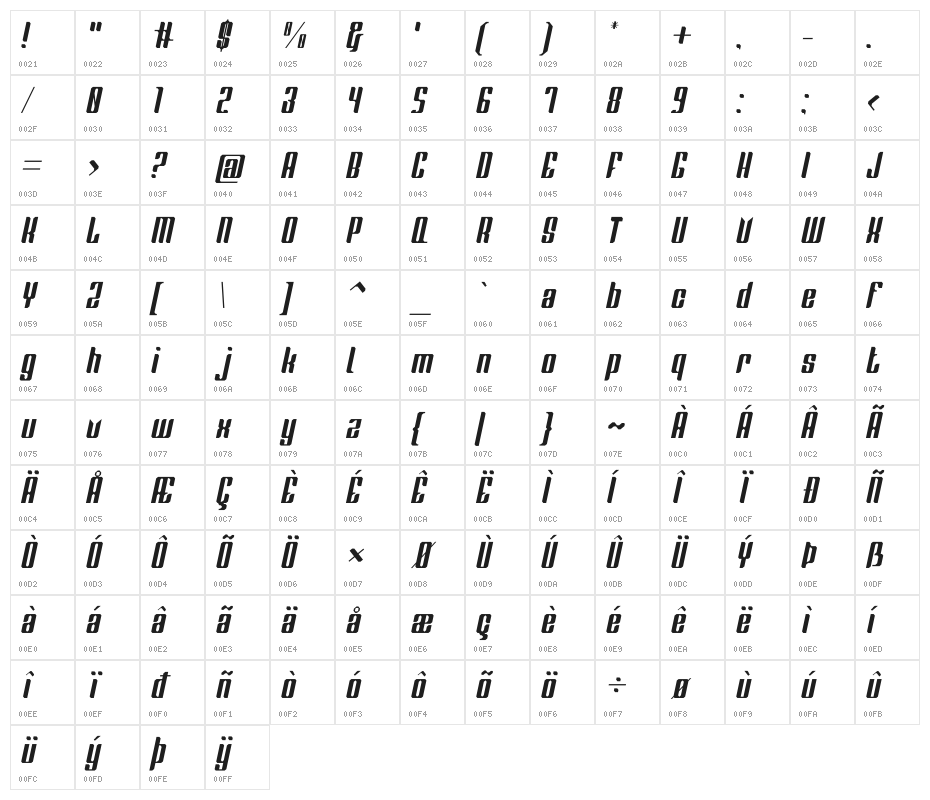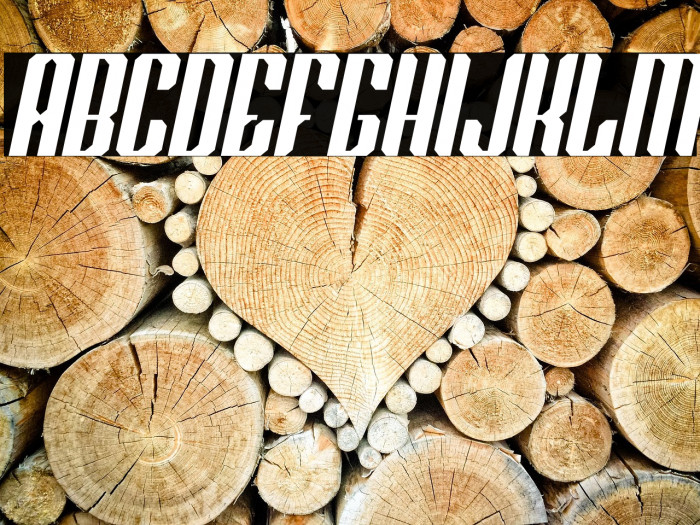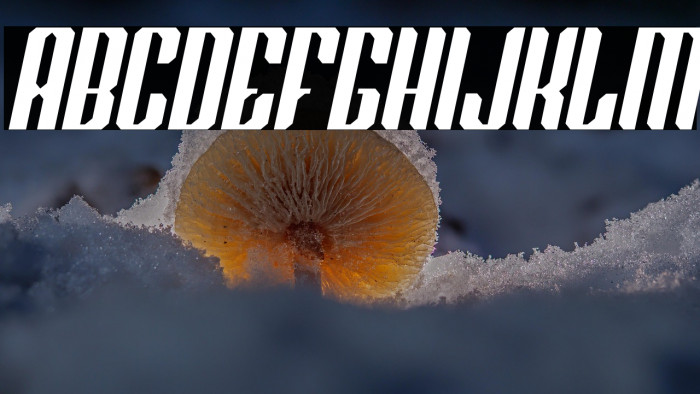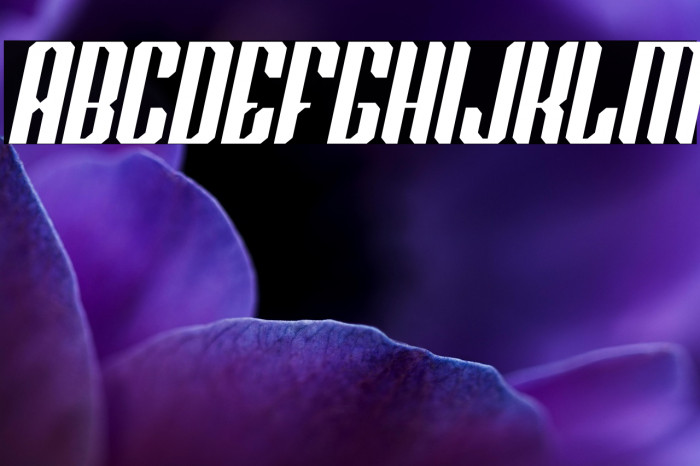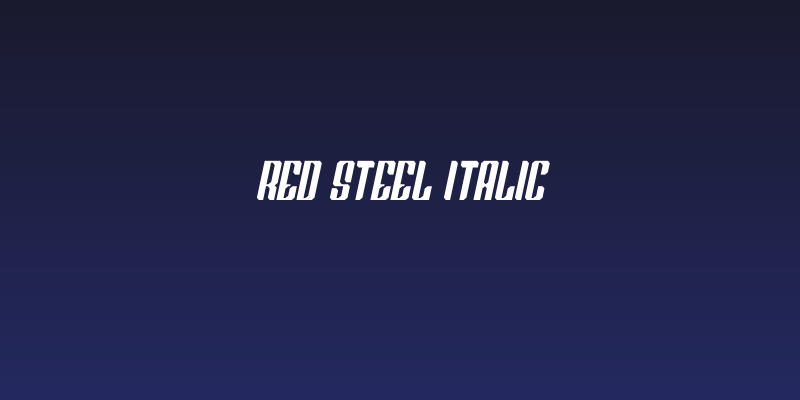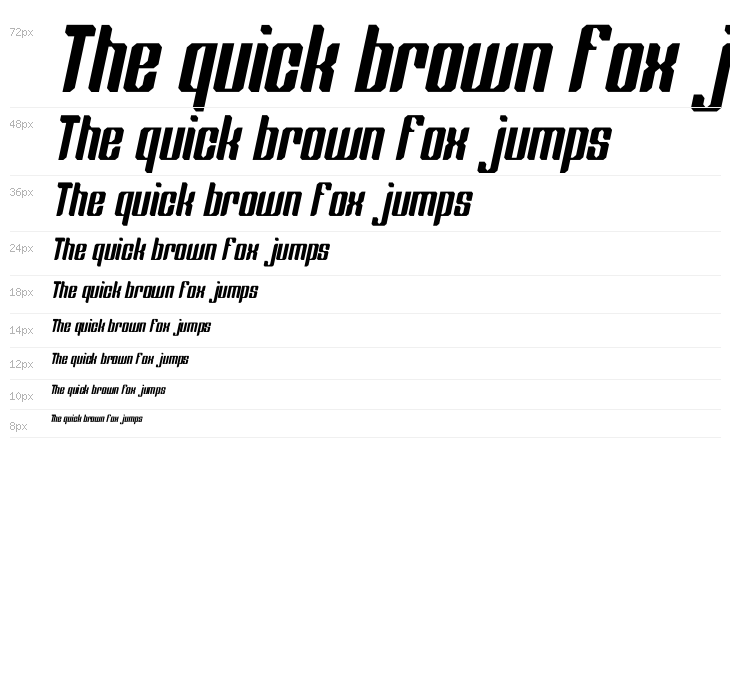
Red Steel Italic Font
Red Steel Italic Description
This font features a bold, italicized style with a strong, industrial feel. The characters are sharply angled, giving them a dynamic and forward-leaning appearance. The uppercase letters are tall and commanding, while the lowercase letters maintain a consistent height that complements the uppercase. The numerals are distinct and easily readable, matching the boldness of the alphabetic characters. Special characters are designed with the same angular precision, ensuring a cohesive look across all glyphs. The overall design is modern and assertive, making it suitable for projects that require a strong visual impact.